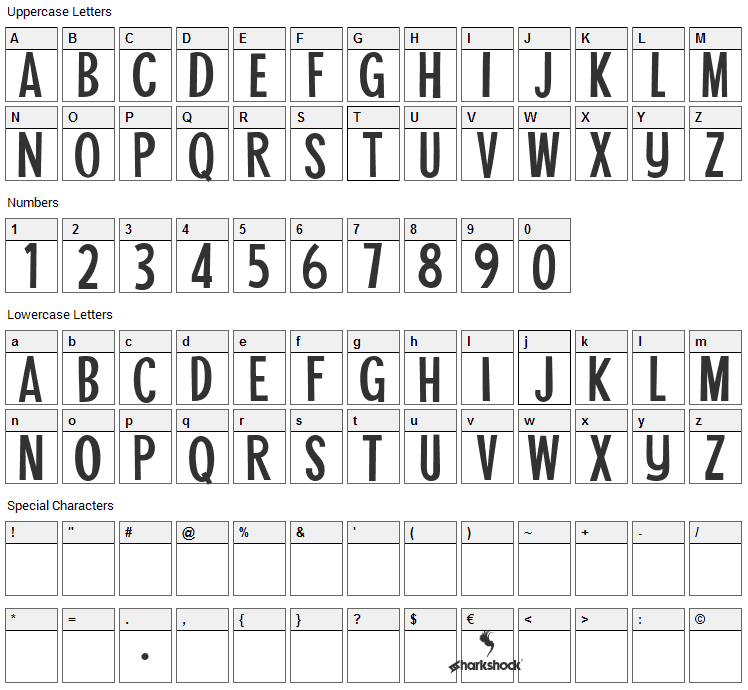
Tahiti Sans is a playful, all caps display sans available in 2 versions. At first glance it appears to be the offspring of a rather uniform font and a wacky one. The variations of letterforms as well as random angles are minimal. They’re tall by nature so squeezing text into tight spaces should be easy. Characters are slightly jumbled in a childlike manner and misaligned with varying degrees of spacing. Use Tahiti Sans when the project calls for clean, easy-to-read text with a little fun. Examples include youth sports, social media, or advertising.